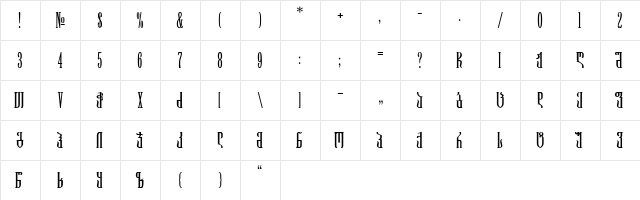
Geo Times Mtavr Regular
Design Context for Geo Times Mtavr Typeface
Geo Times Mtavr offers clean, dependable letterforms without strong stylistic allegiance, making it a practical choice for designers who need flexibility.